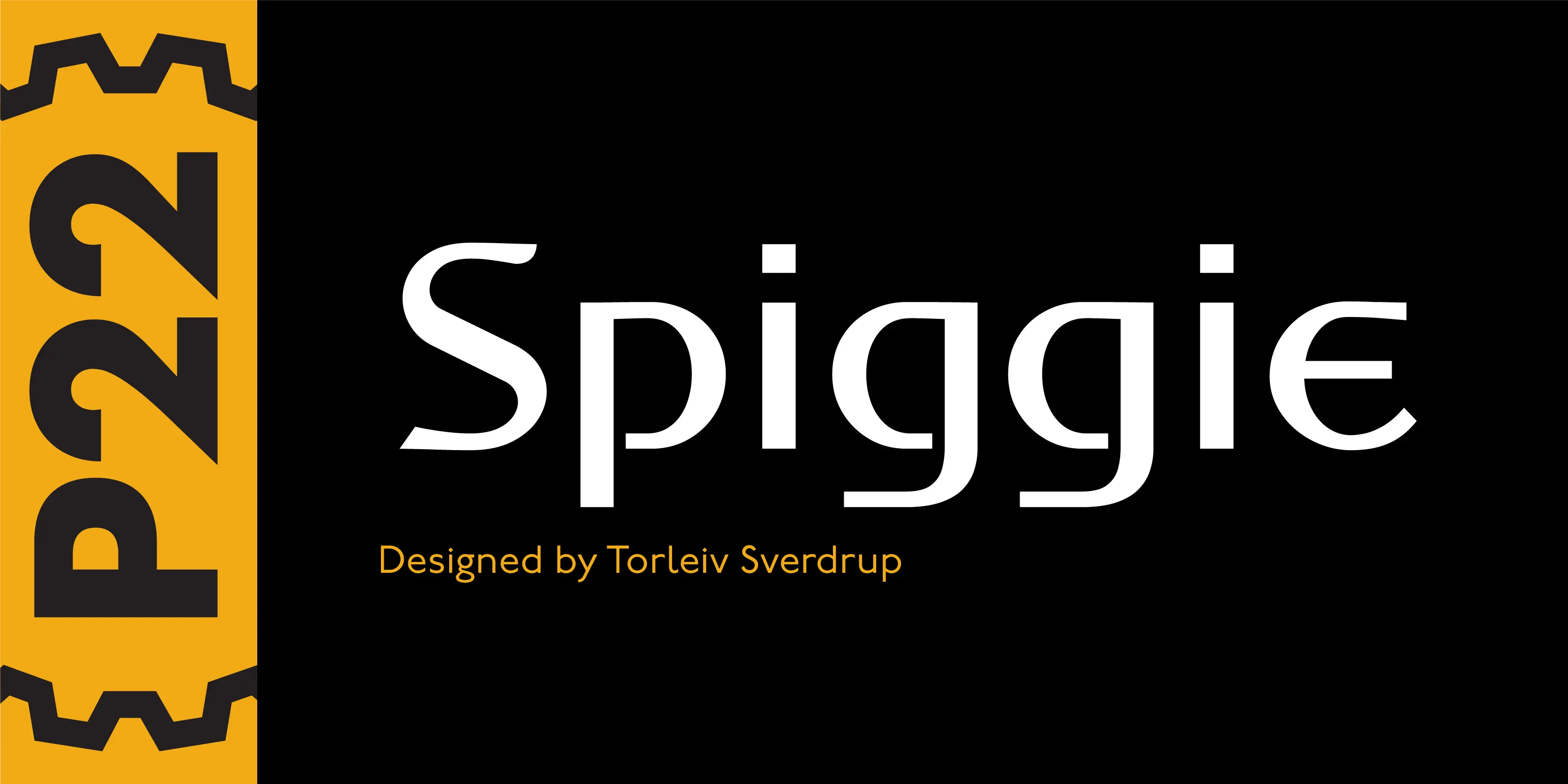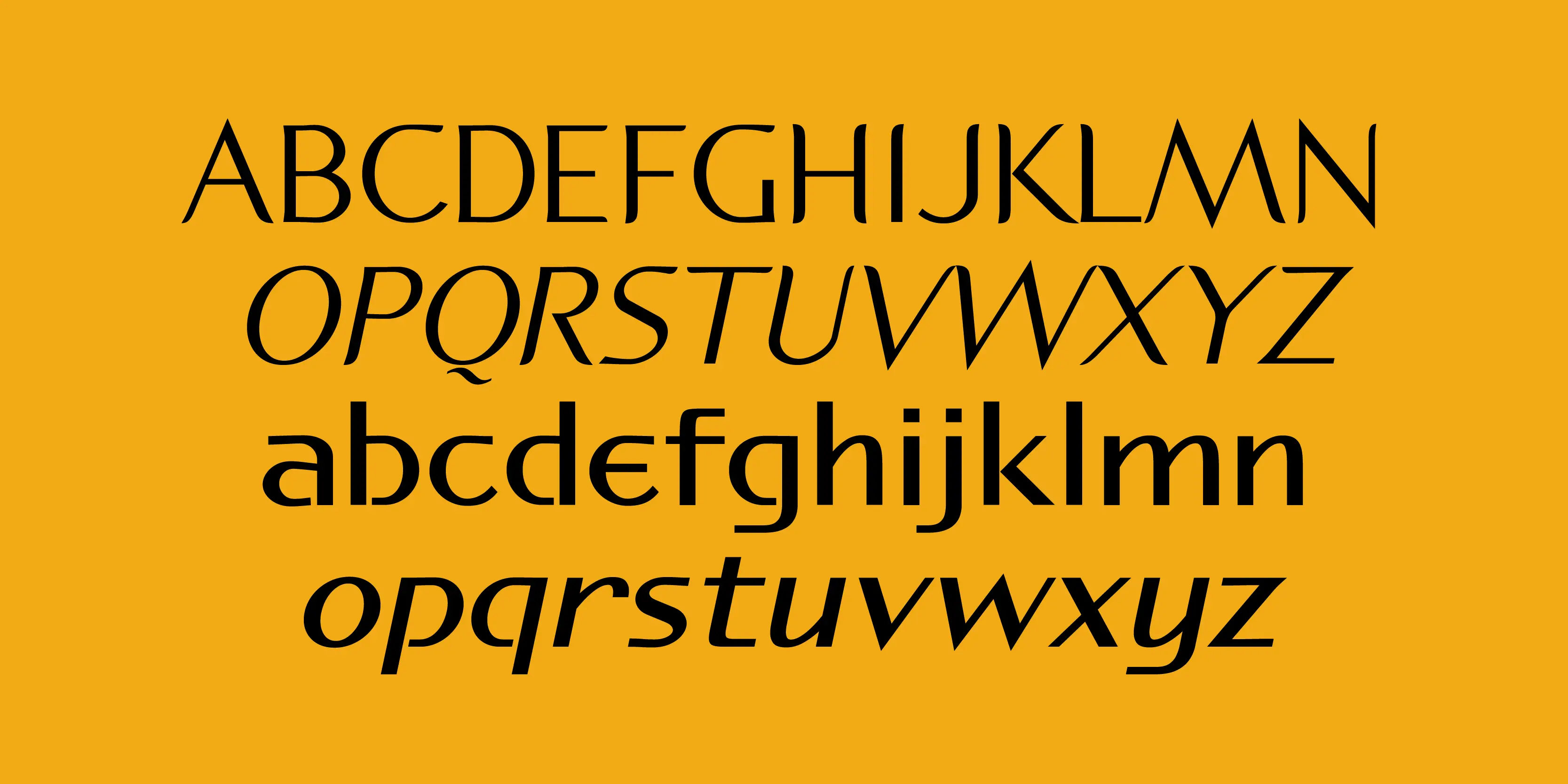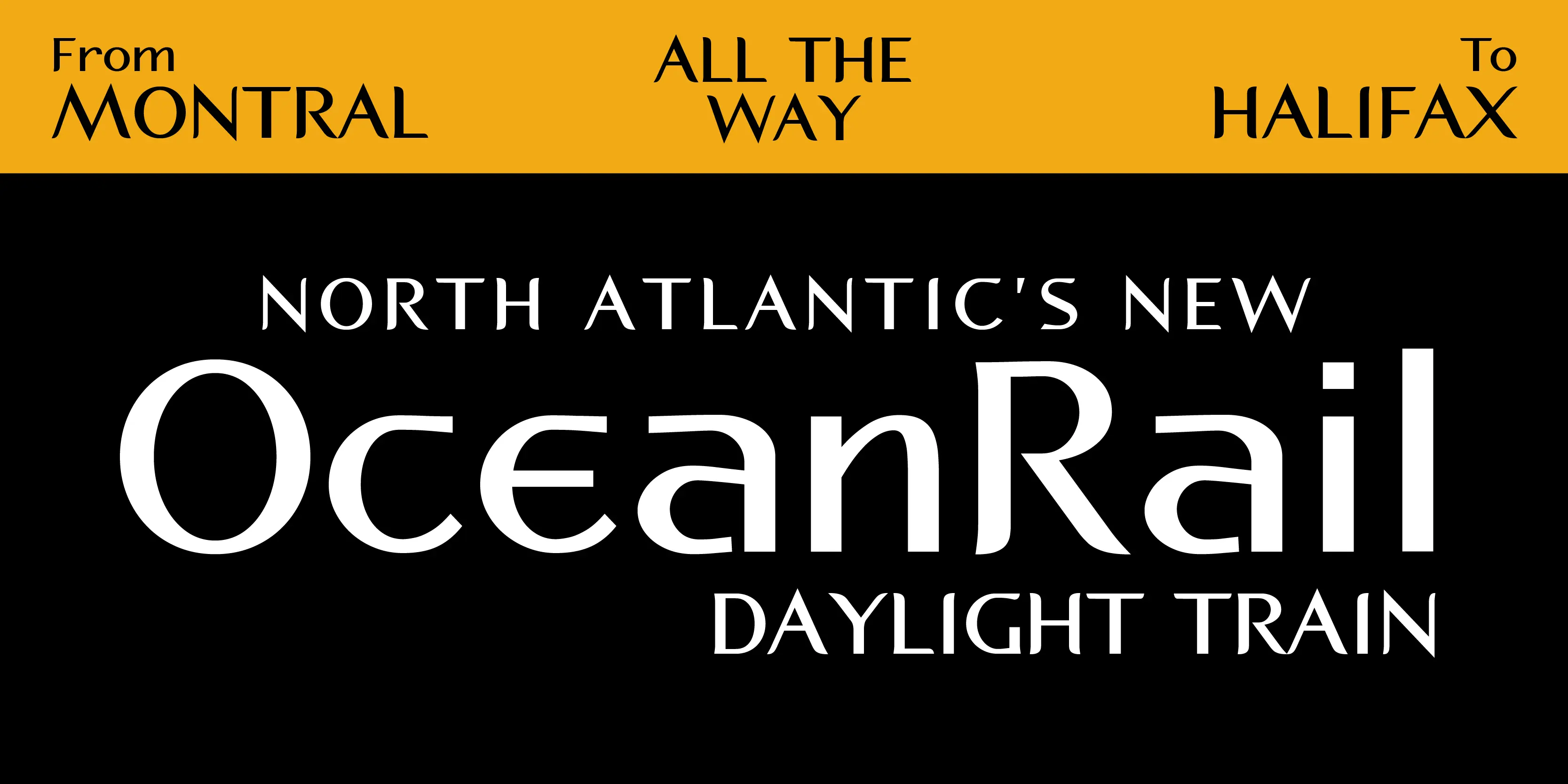
Spiggie Font Family
Spiggie
“Spiggie is a sans-serif, whose name came to me on a Shetland beach. The beach traces a tight curve between the shoreline and the sea paralleled in the fonts controlled yet smooth character. The design language reaches back to the art deco period and the 1920s, yet retains a distinct modern flavor.”